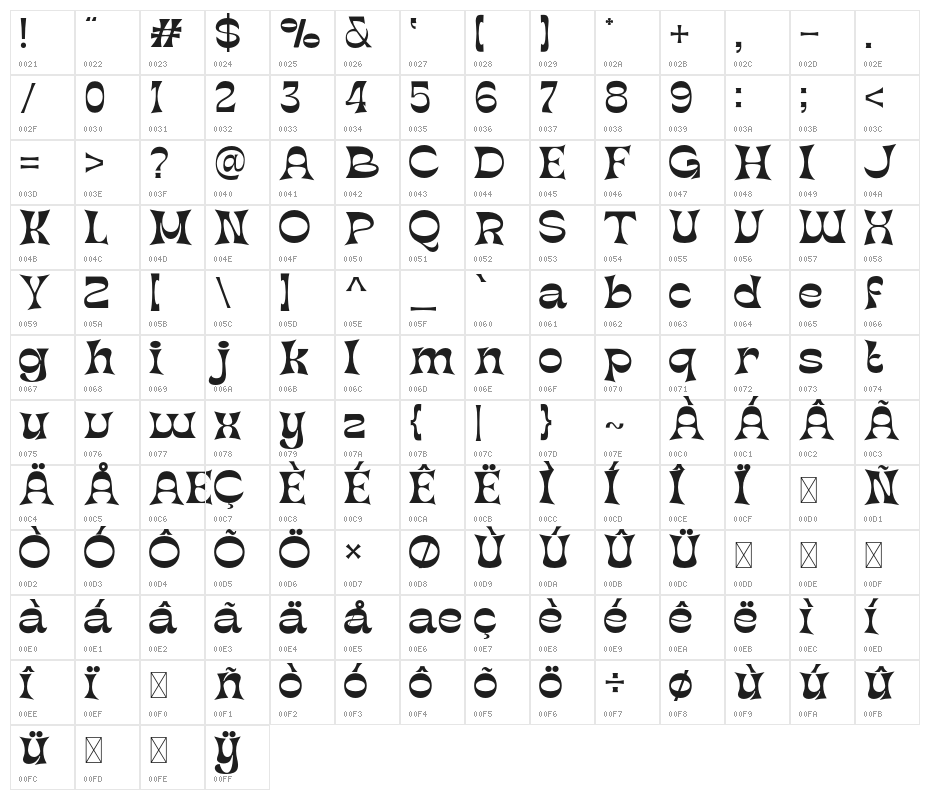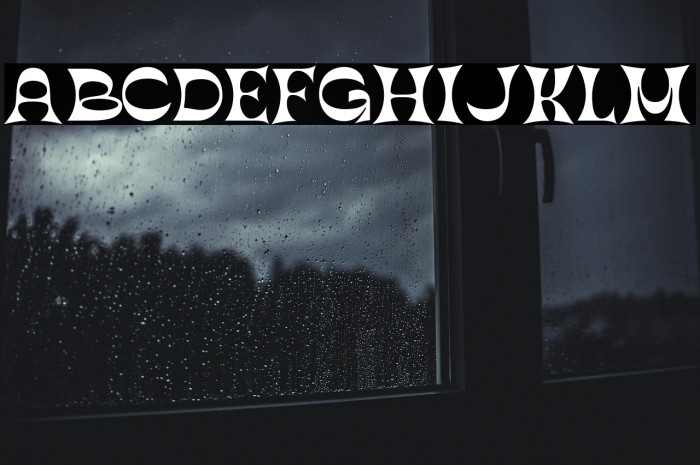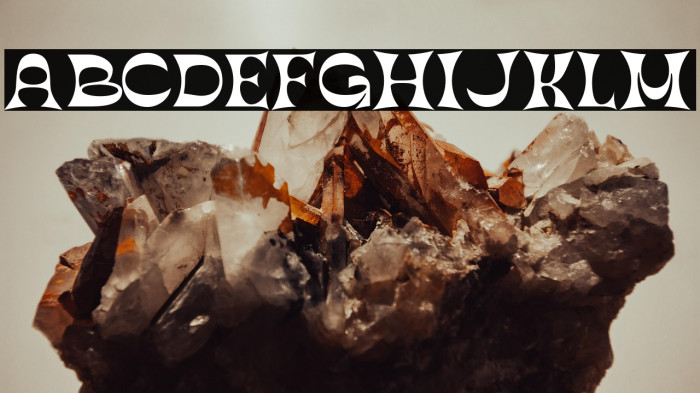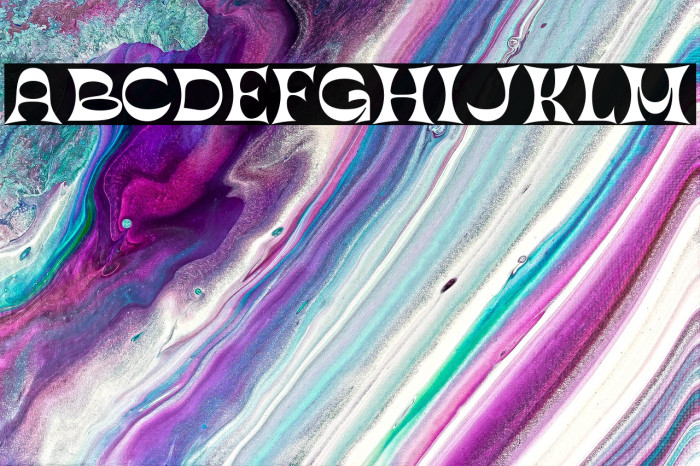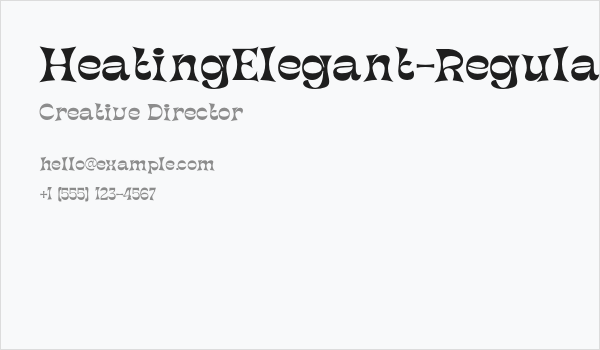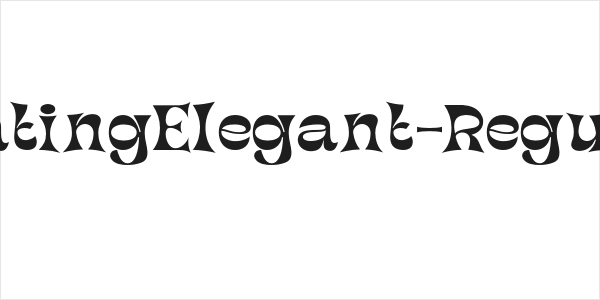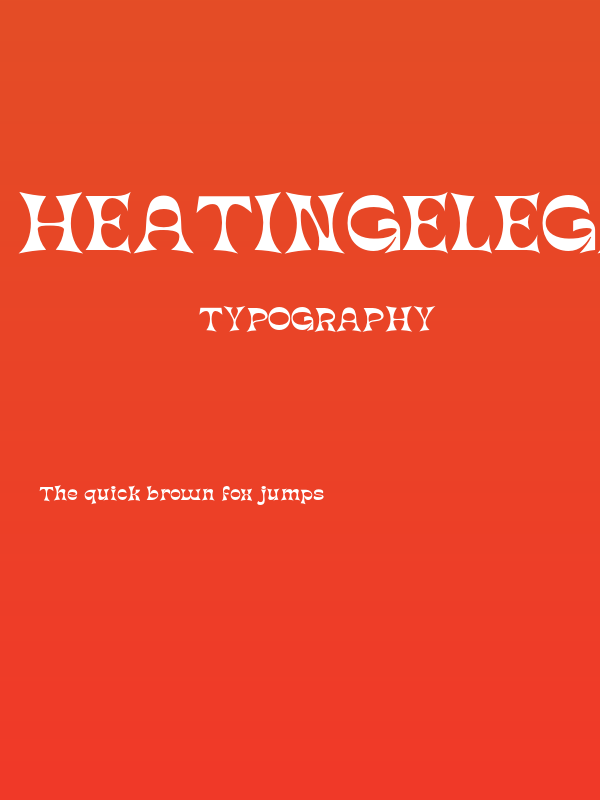
HeatingElegant-Regular Font
HeatingElegant-Regular Description
This font features a bold and dramatic style with high contrast between thick and thin strokes. The characters have a unique, artistic flair, with sharp angles and curves that create a sense of movement and energy. The uppercase letters are particularly striking, with exaggerated serifs and a strong presence. The lowercase letters maintain the same dynamic style, ensuring consistency throughout the text. Numbers and special characters are designed with the same attention to detail, making them stand out while remaining cohesive with the overall design.
| Proposed Projects | Ideal for use in headlines, posters, branding, and any project that requires a strong visual impact. |